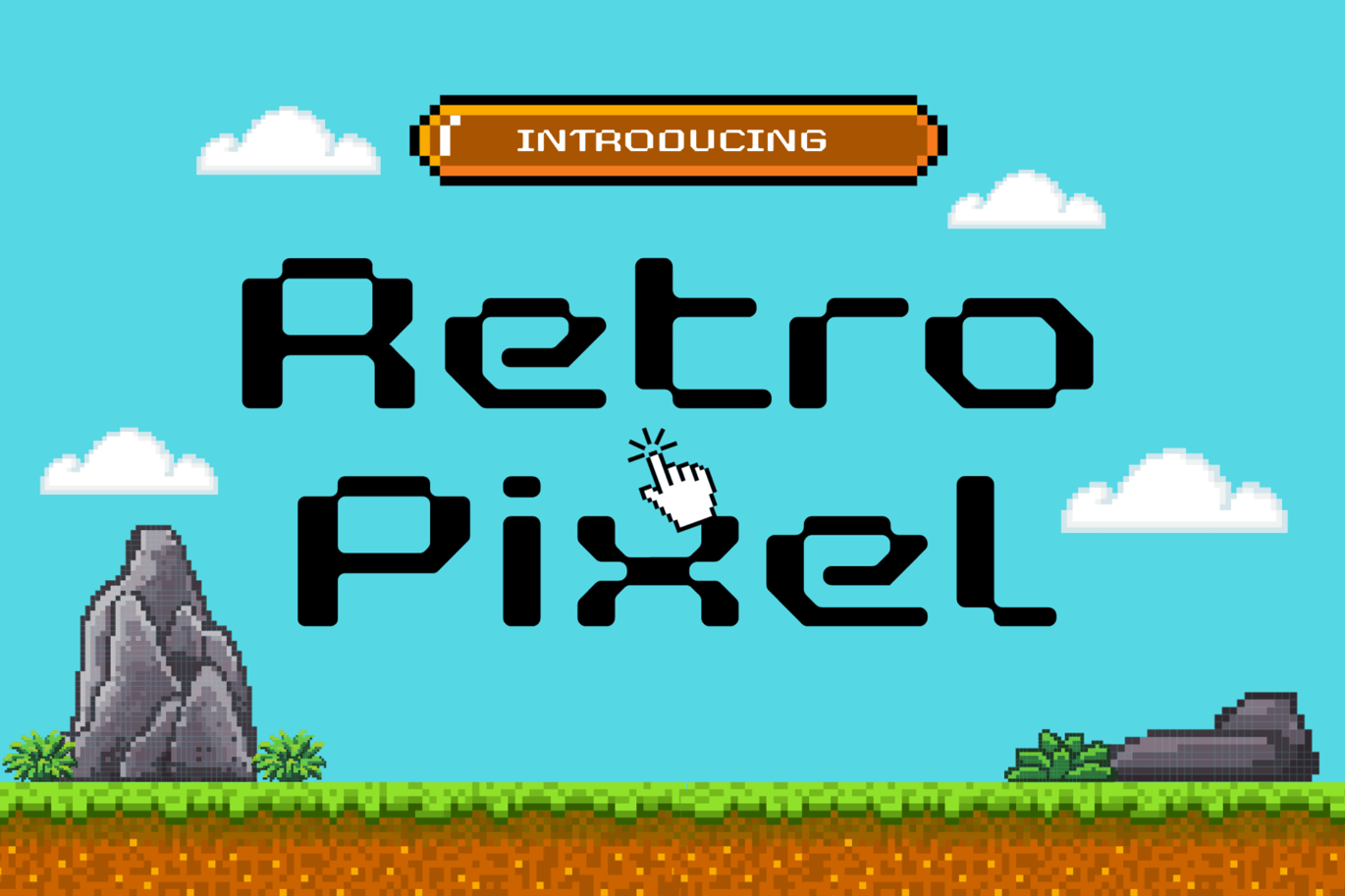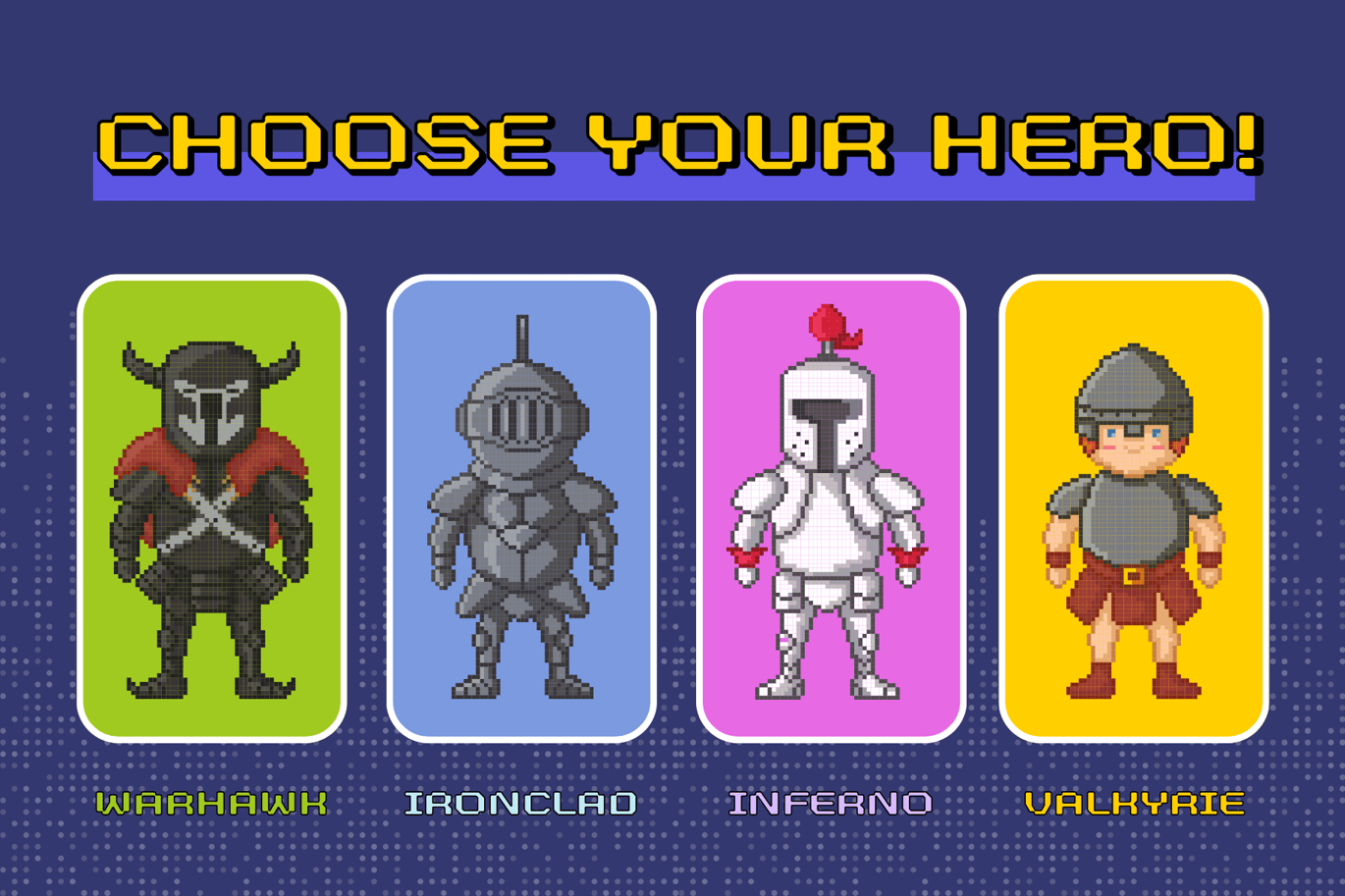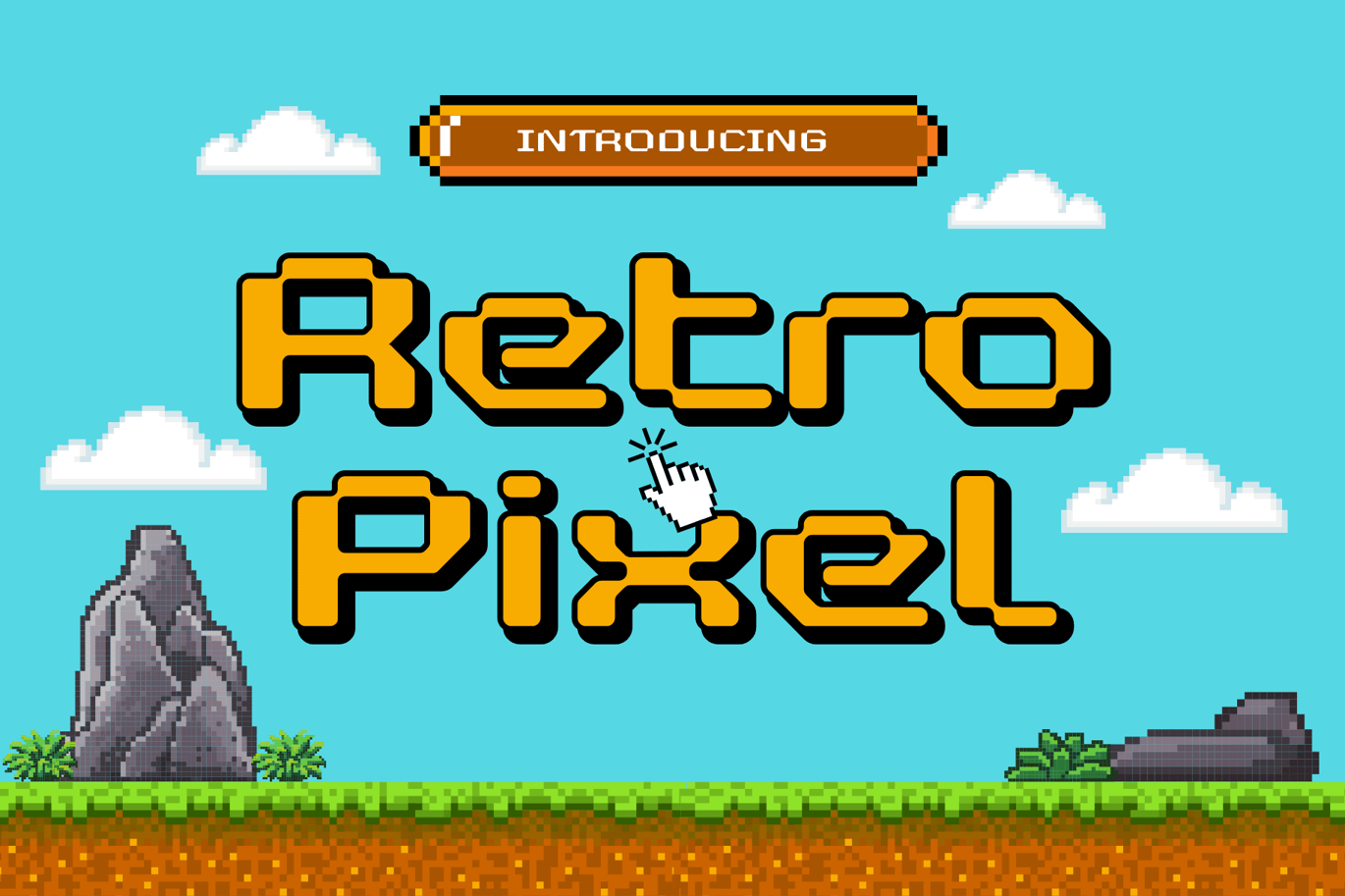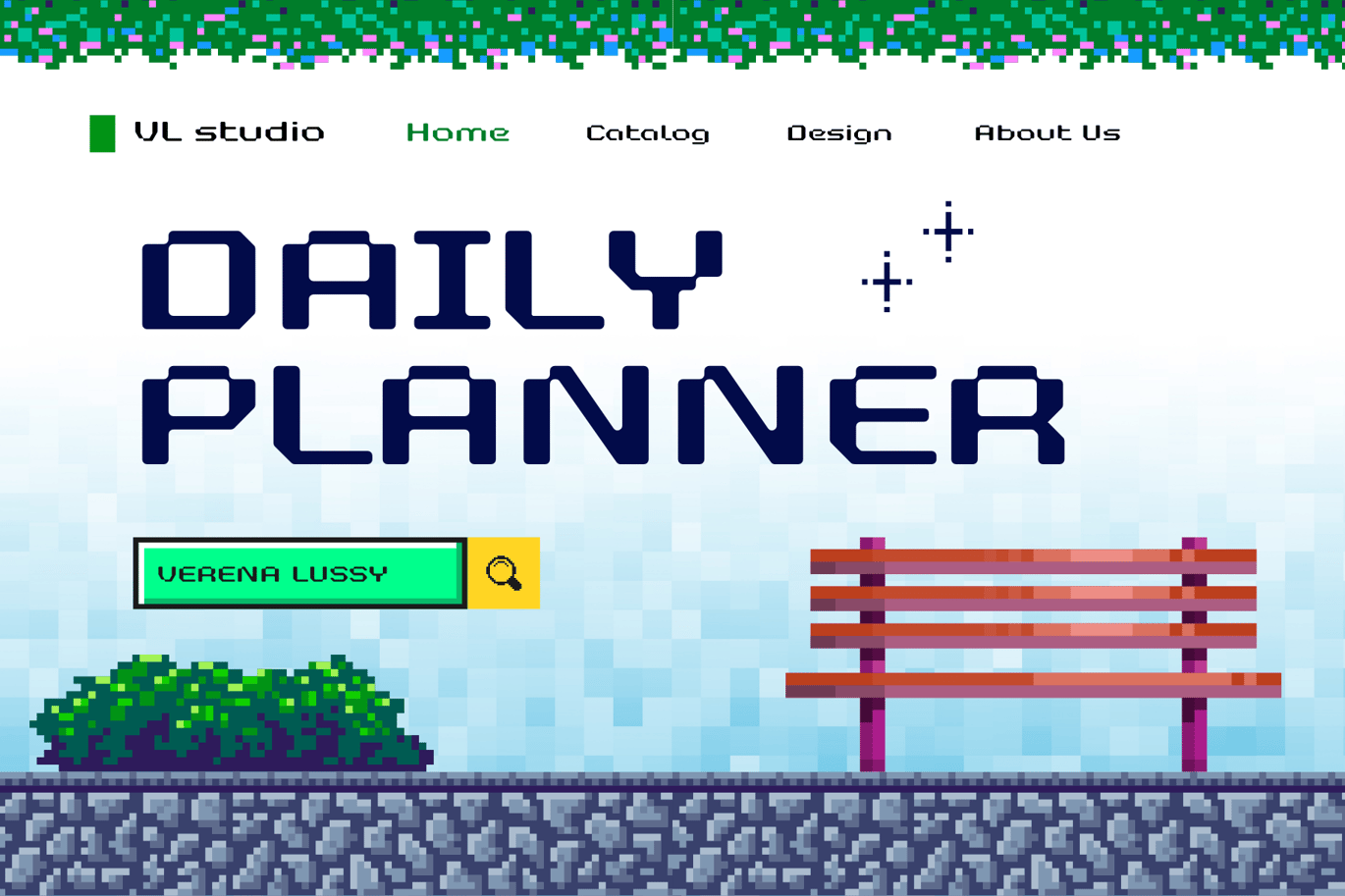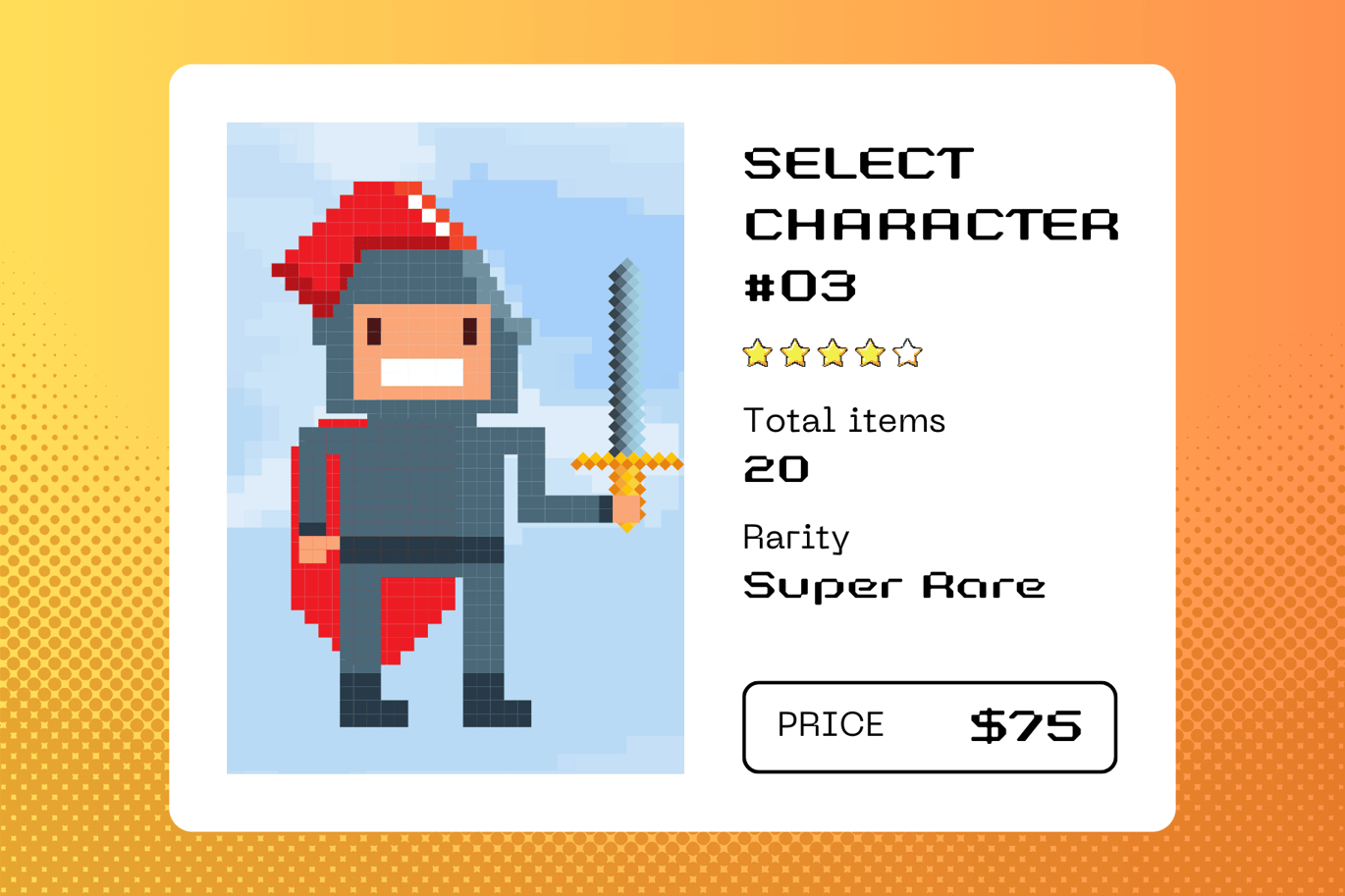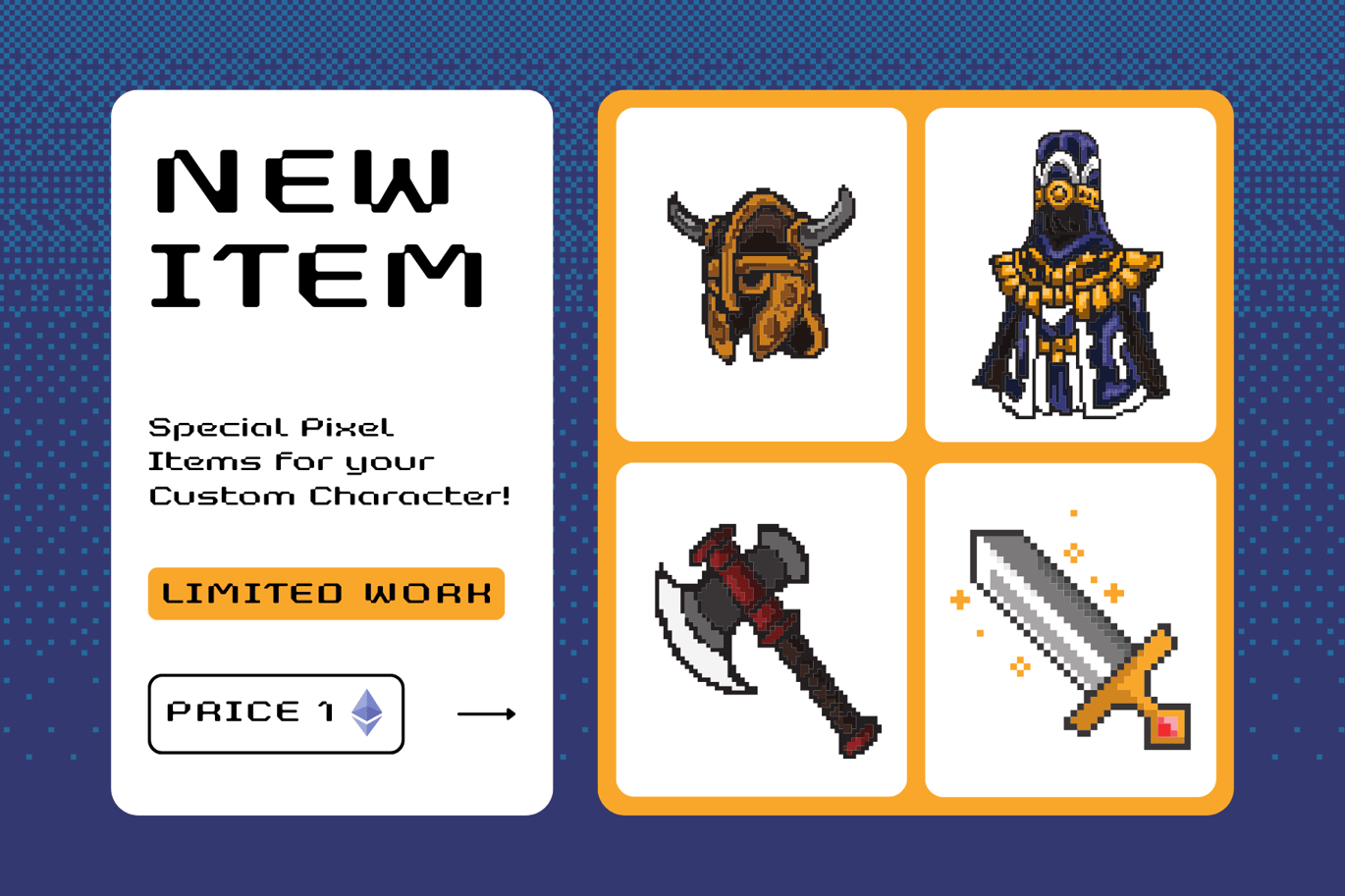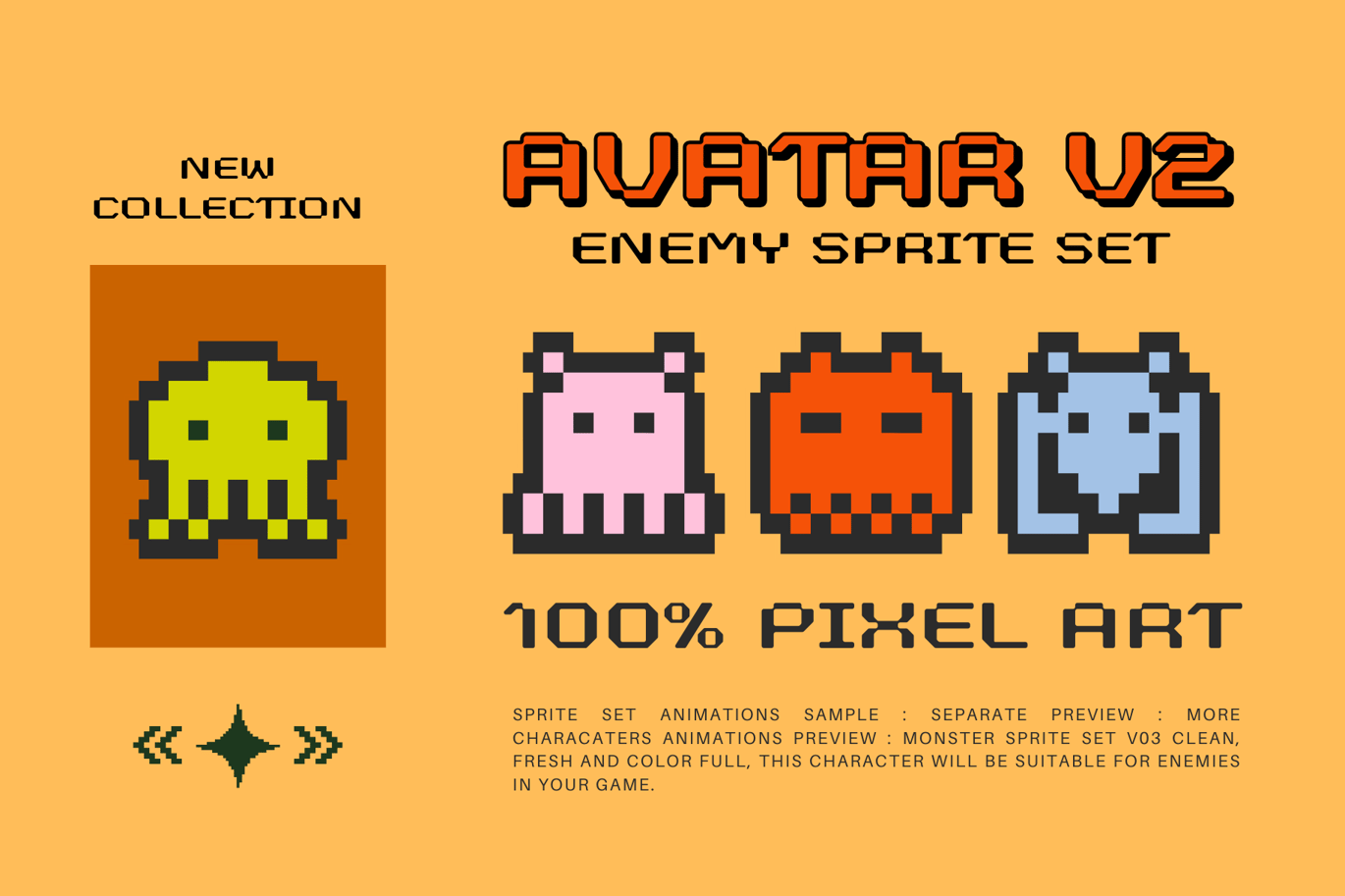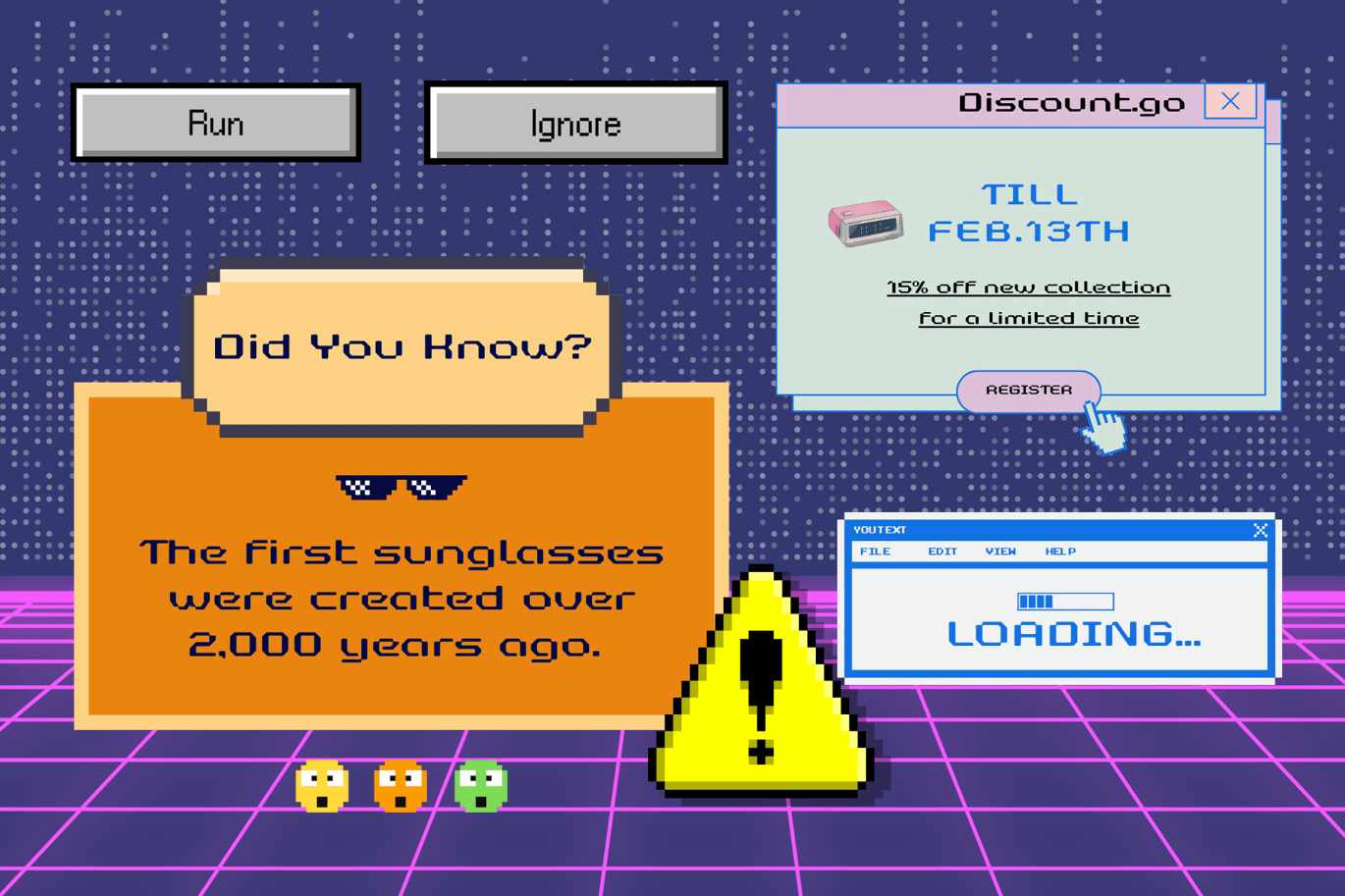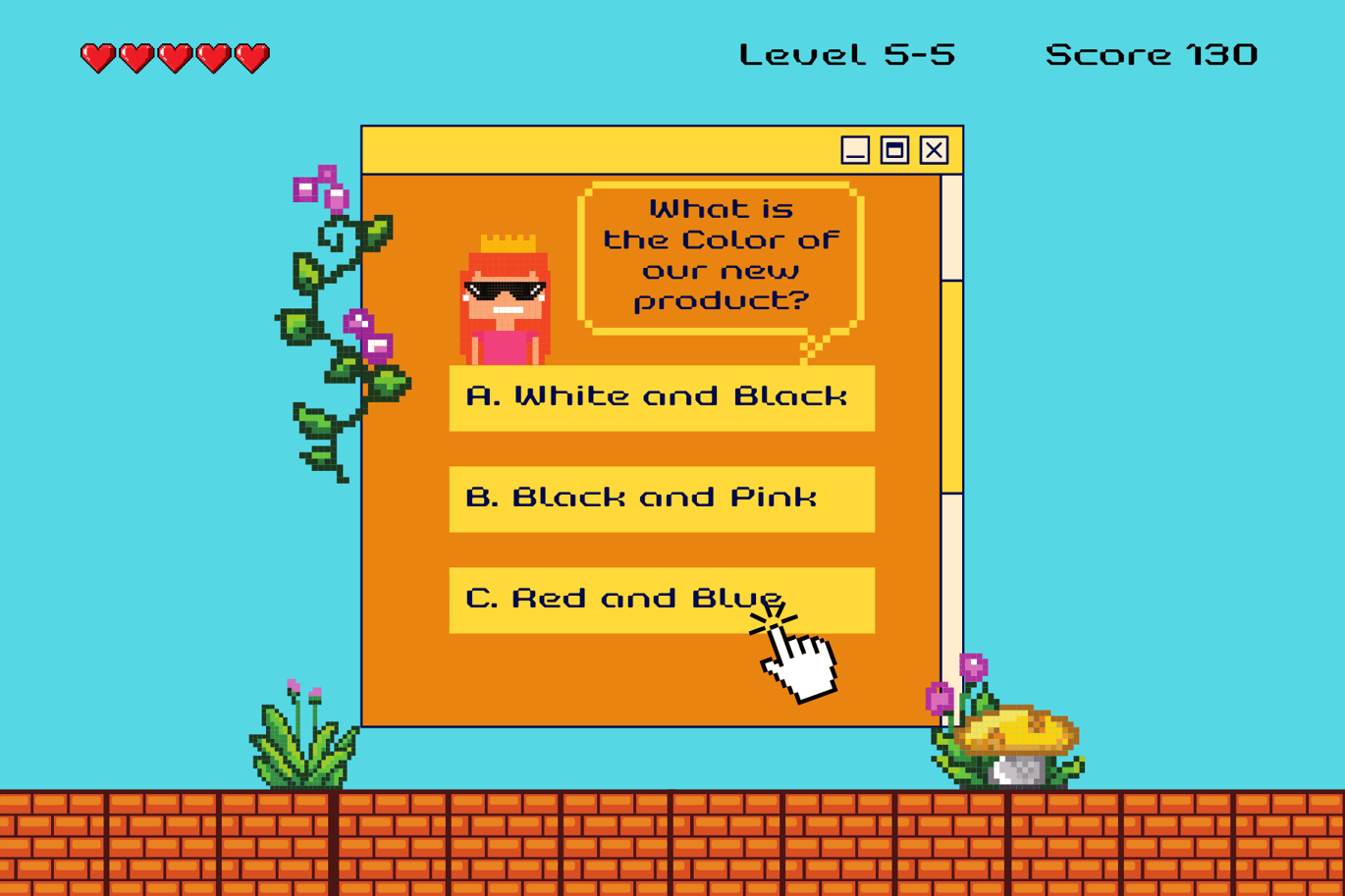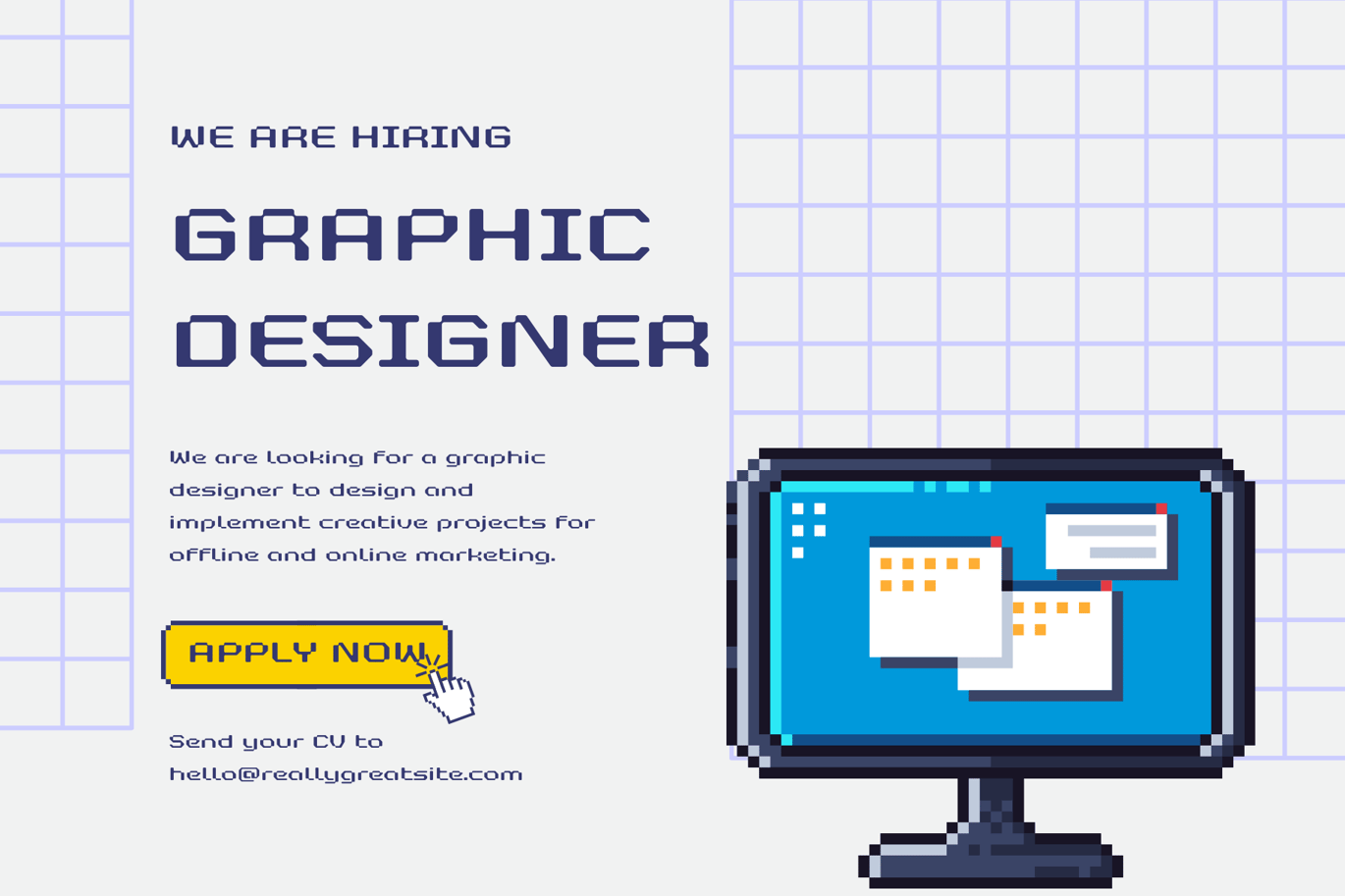
Retro Pixel Font Style
“Unleash a nostalgic vibe with ‘Retro Pixel,’ a font that pays homage to the golden era of gaming. This pixel-inspired typeface effortlessly blends the charm of retro aesthetics with a touch of modern design. Ideal for gaming logos, pixel art, or any project that craves a vintage arcade feel, ‘Retro Pixel’ brings a playful nod to the past while staying firmly rooted in the present.”